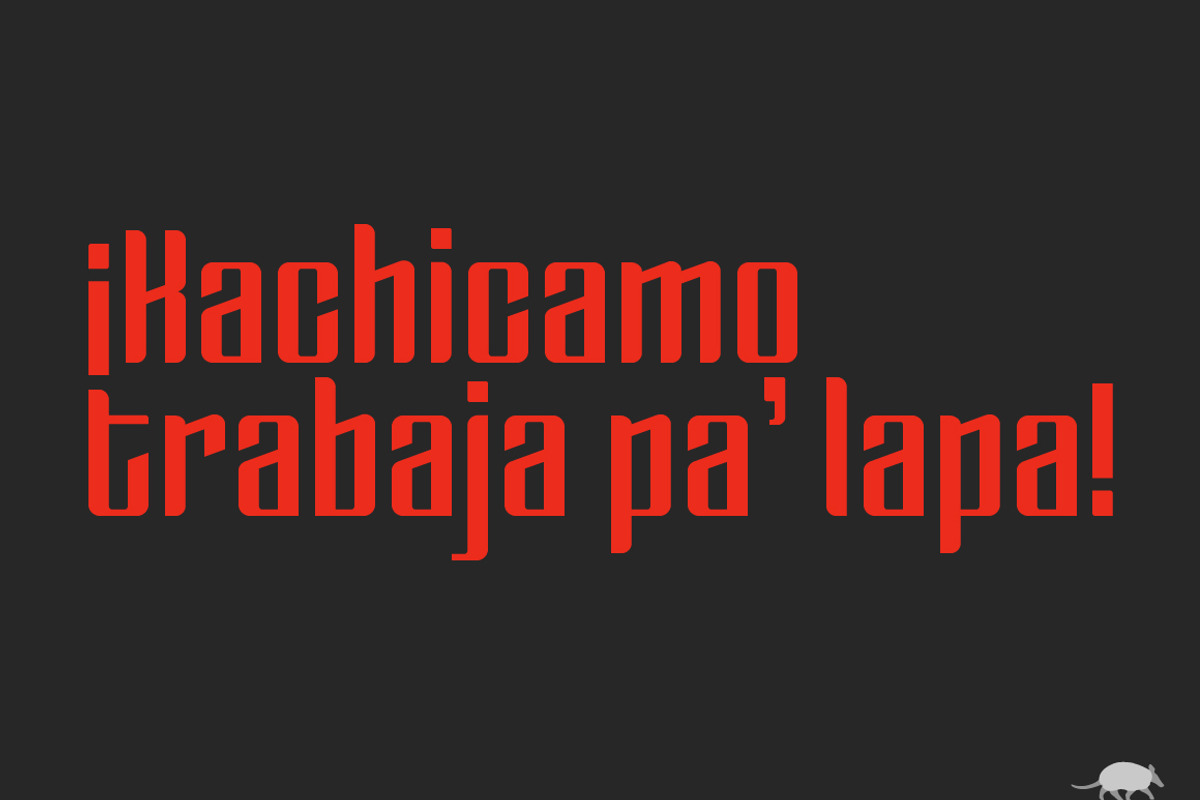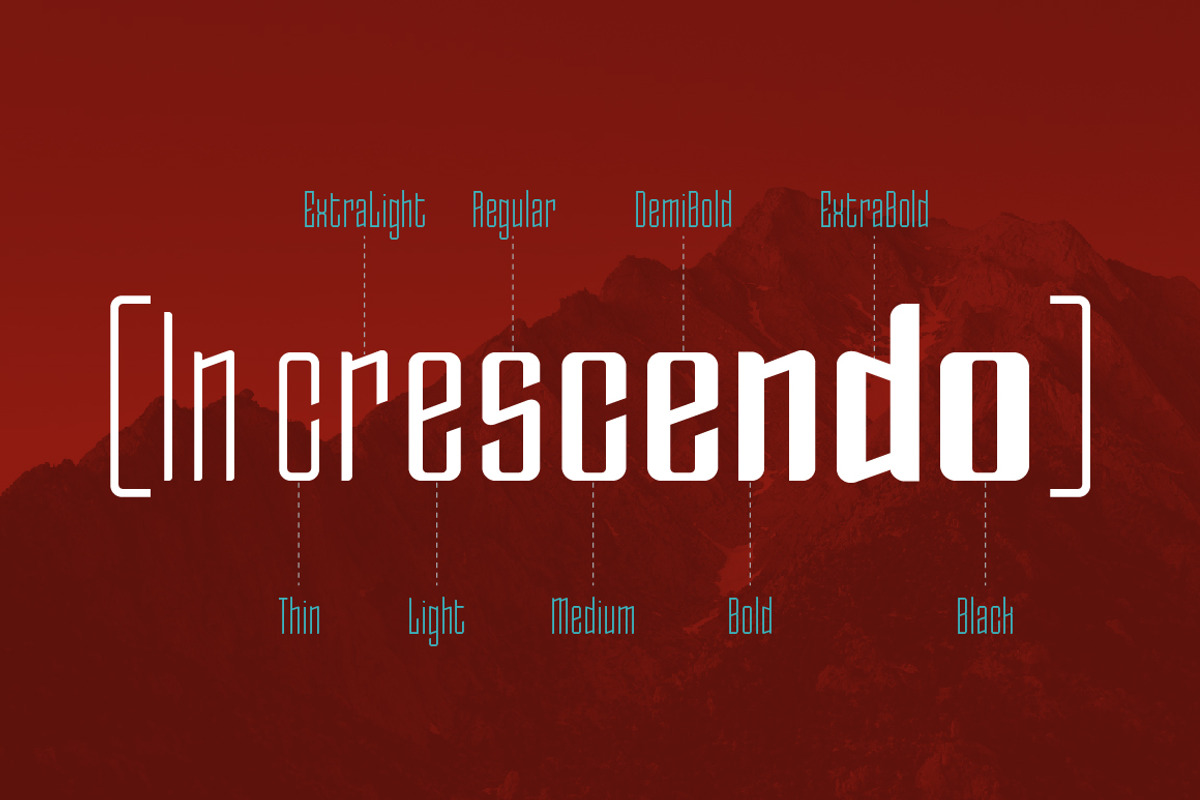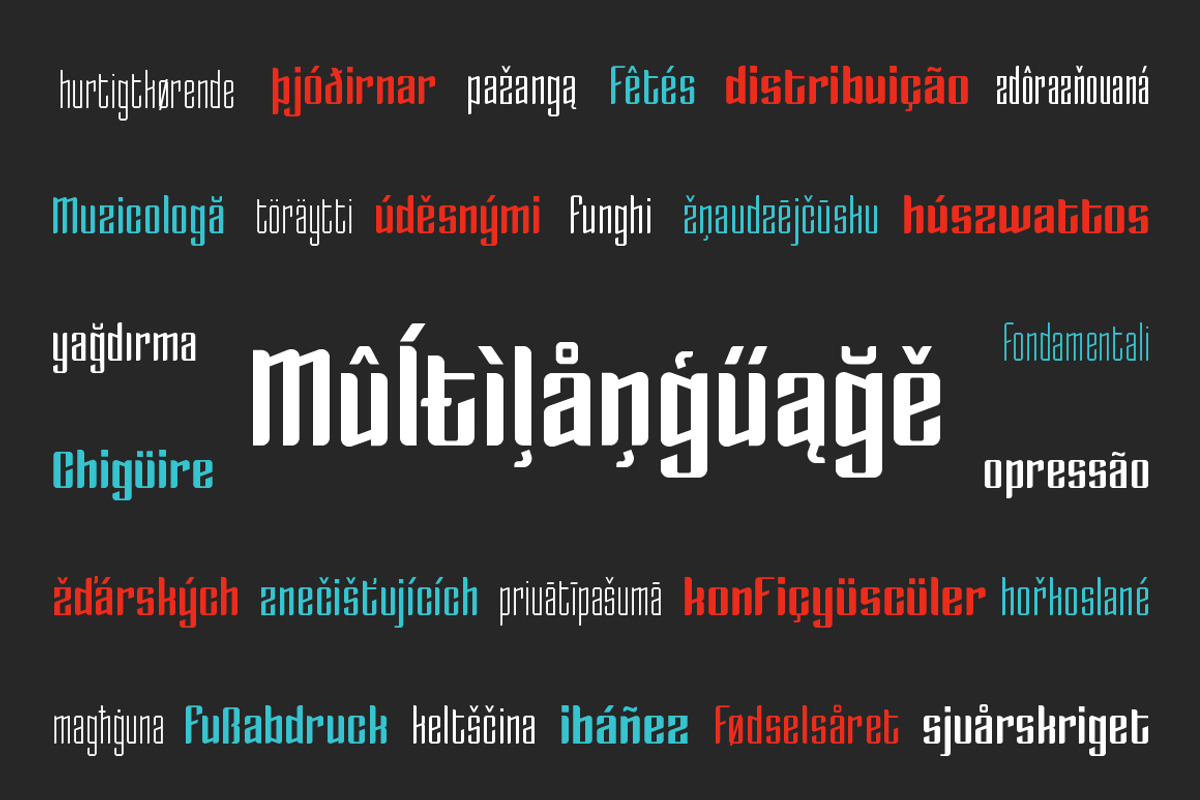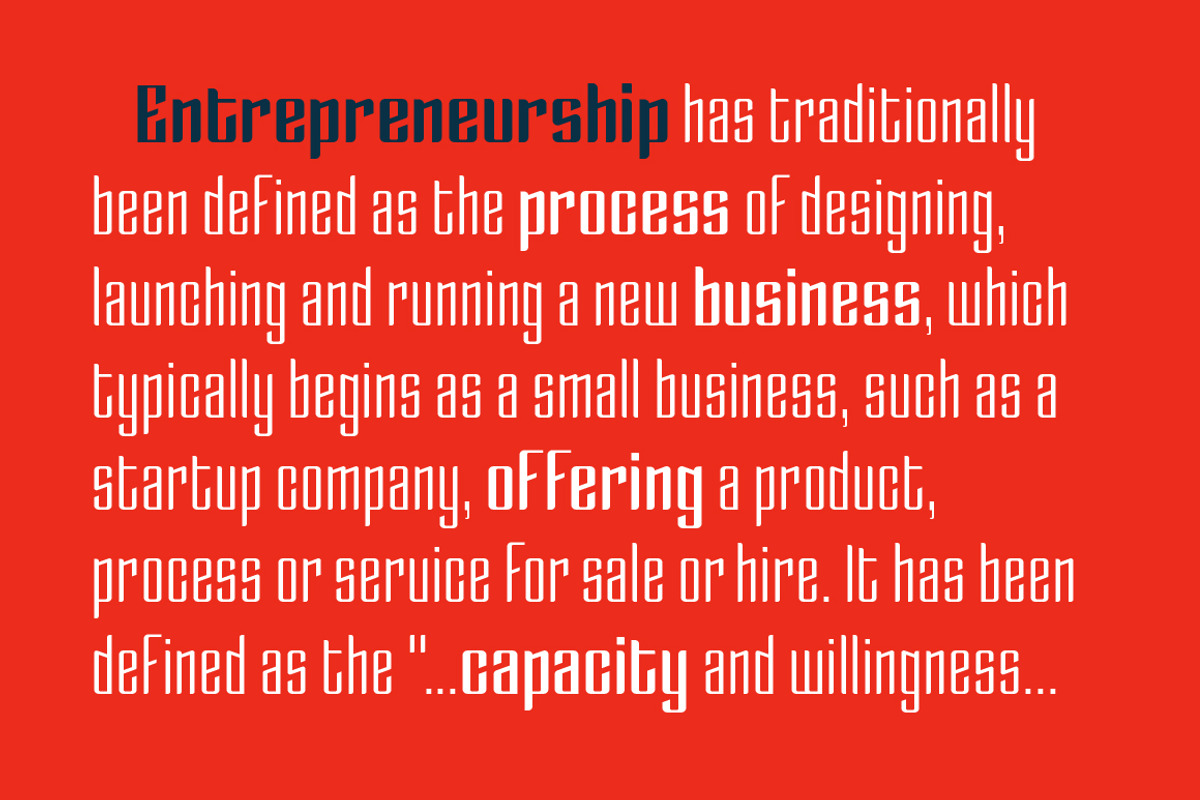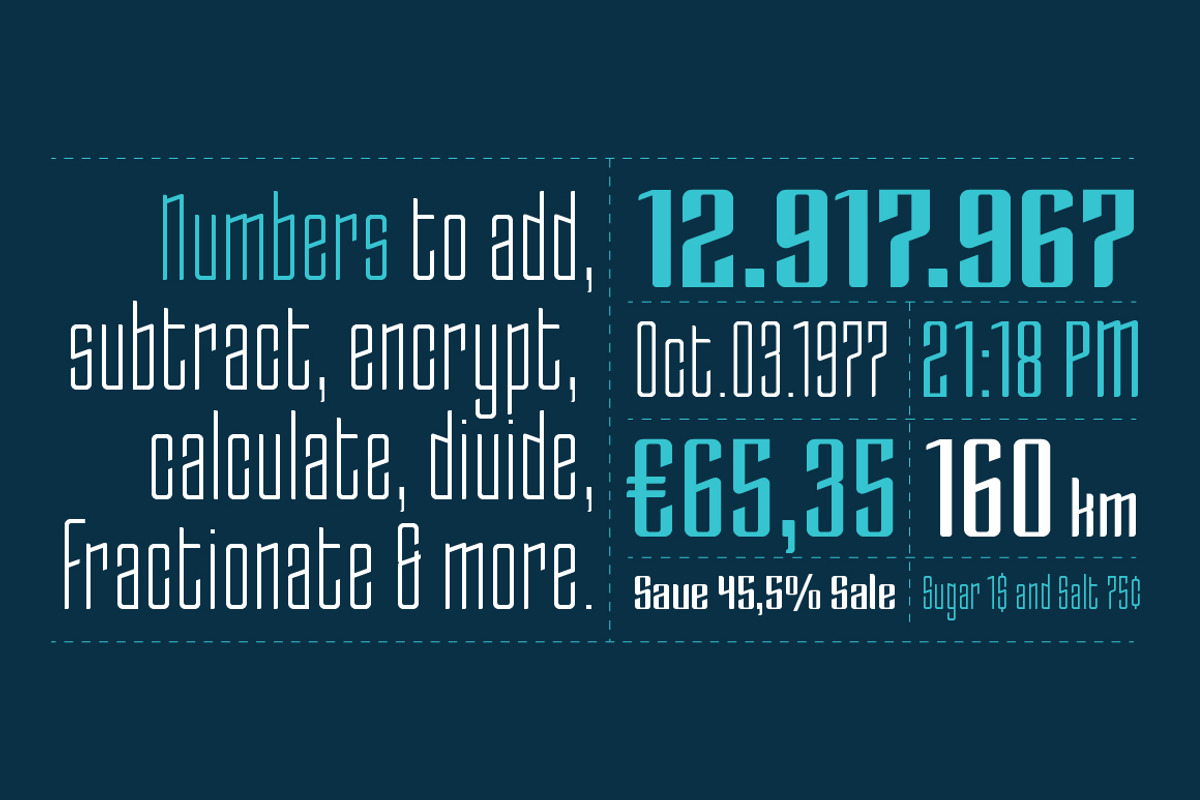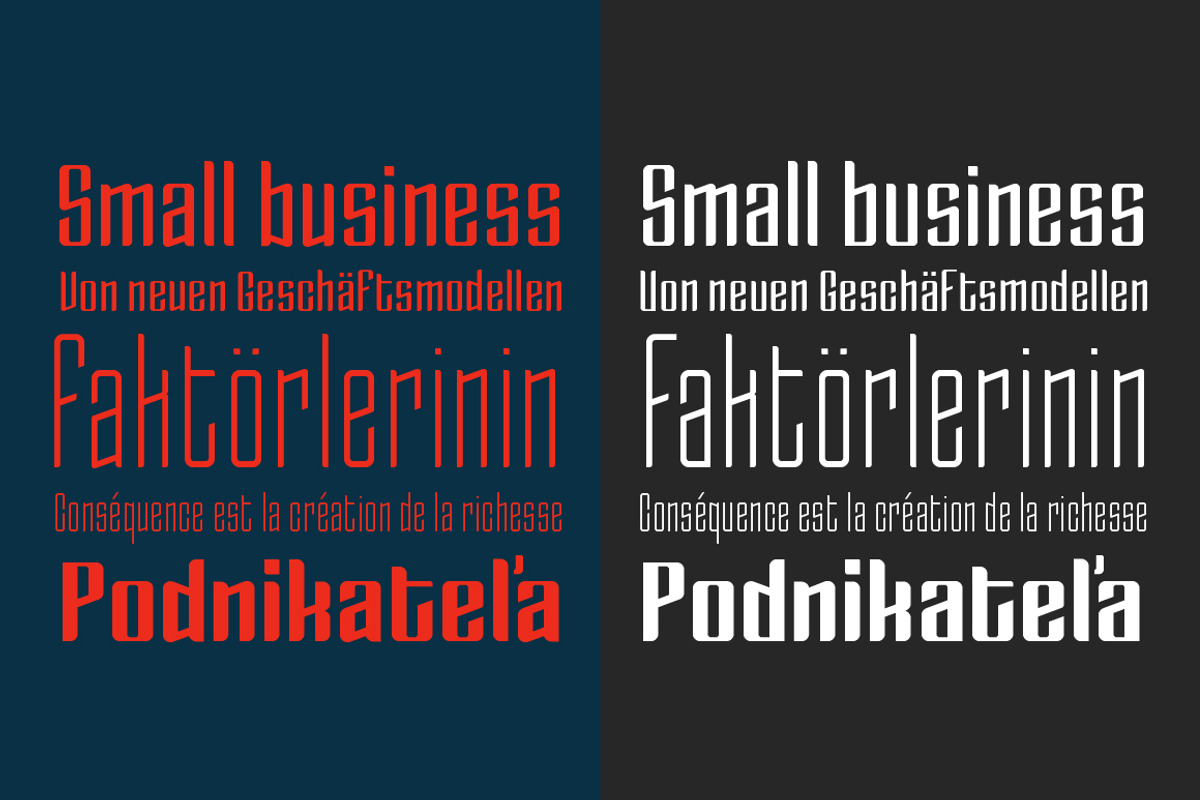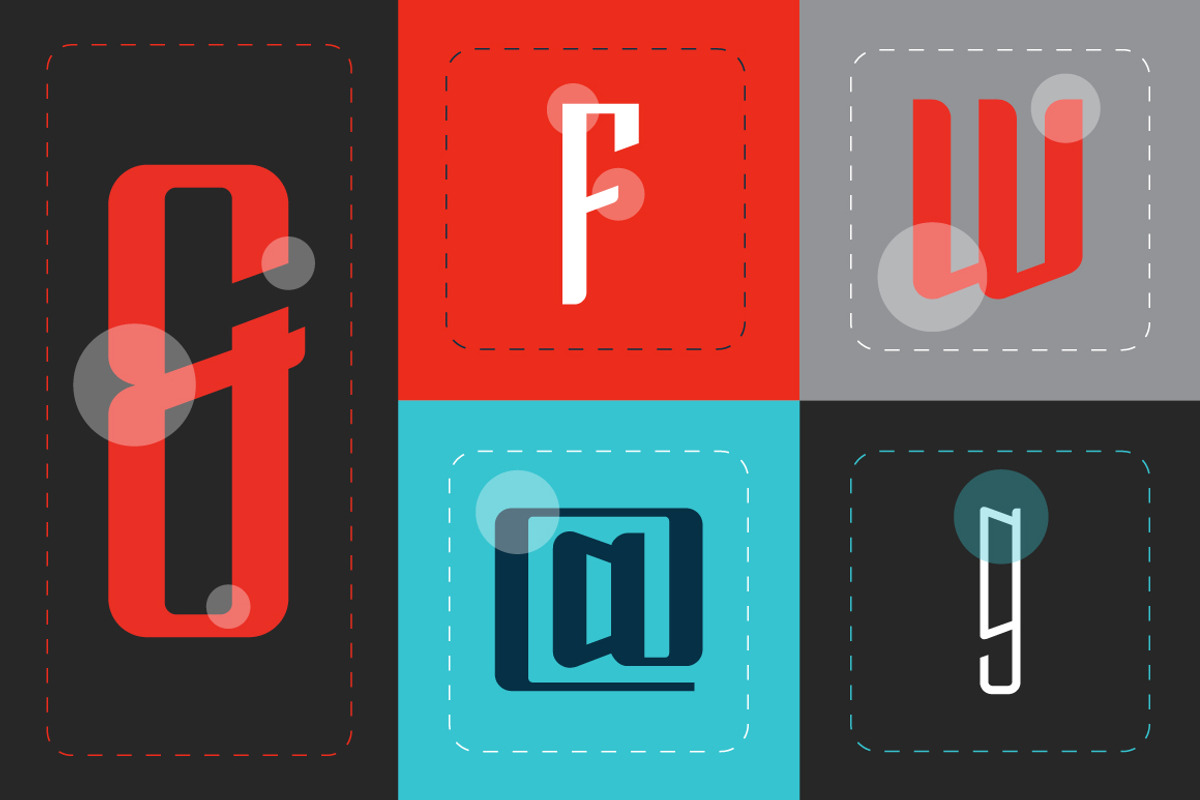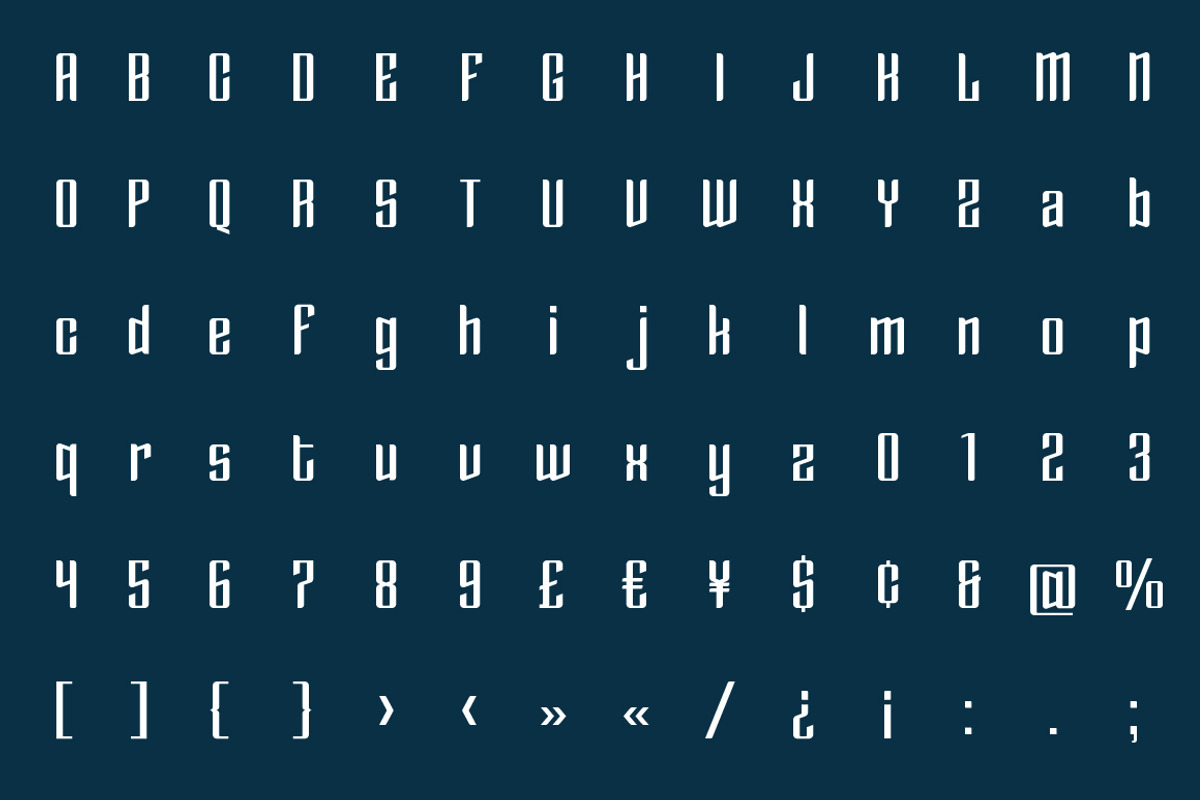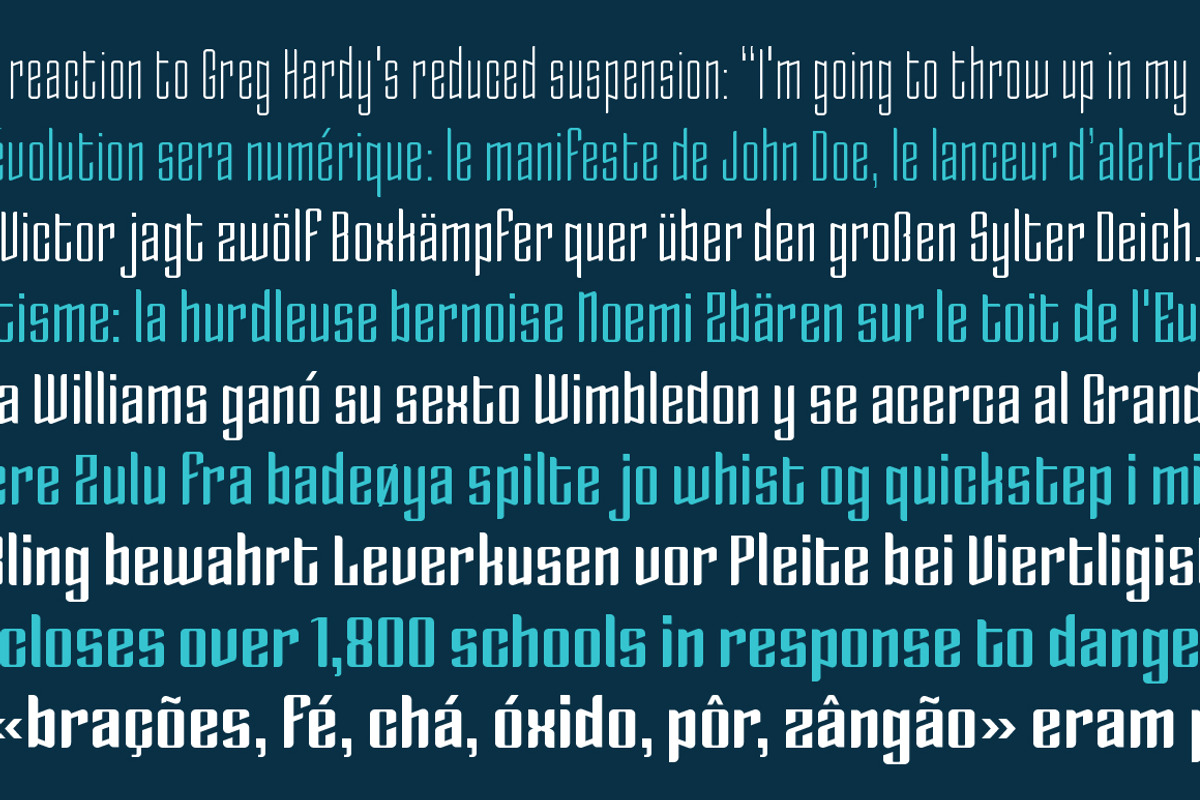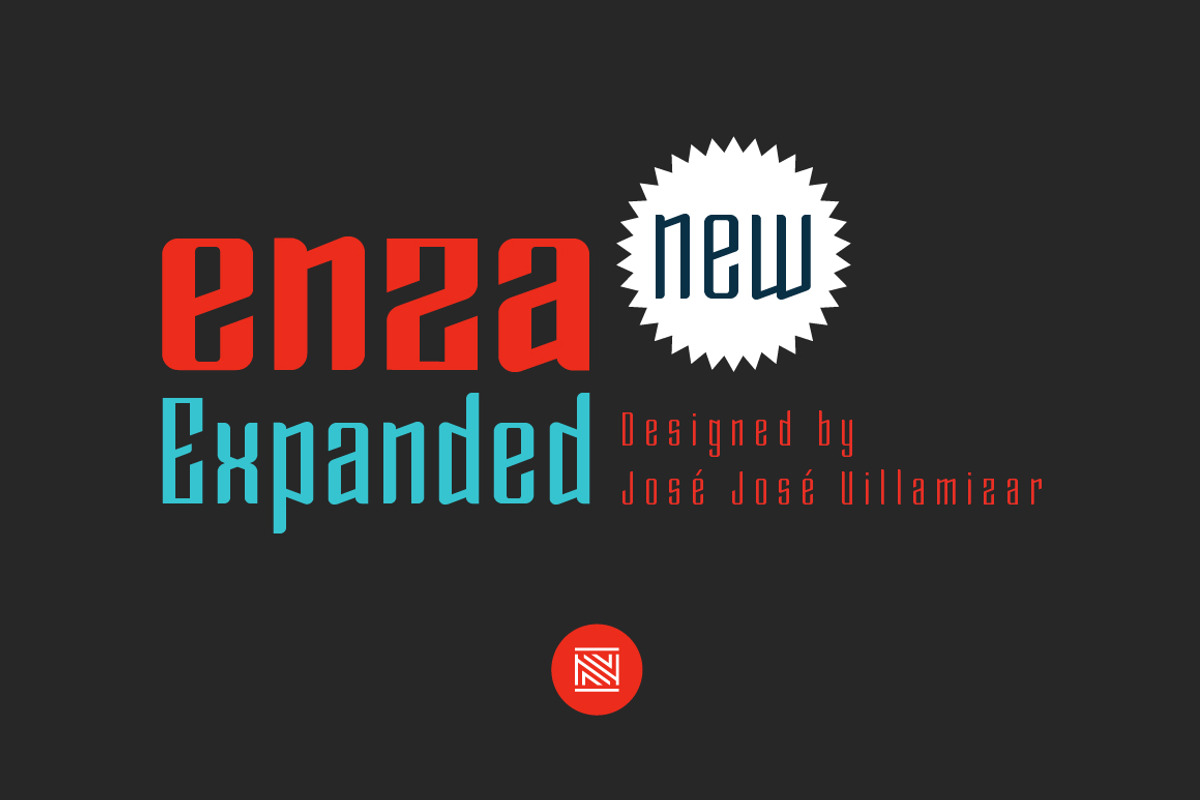
"Enza Expanded” is the new display typeface of the family Enza designed by José José Villamizar for Neo Type Foundry. Its design stems from the typographic exploration for conducting an identity aimed at entrepreneurs of the Millennial Generation.
This typeface is composed of a family of 9 weights and has a total of 462 characters each one. includes Thin, ExtraLight, Light, Regular, Medium, DemiBold, Bold, ExtraBold and Black styles. It also includes stylistic alternates, fractions, and ligatures. Its use is recommended for titles, semicondensed texts or short, and elements of visual communication large phrases. It is also ideal for creating logos, in packaging, signboards and poster design.